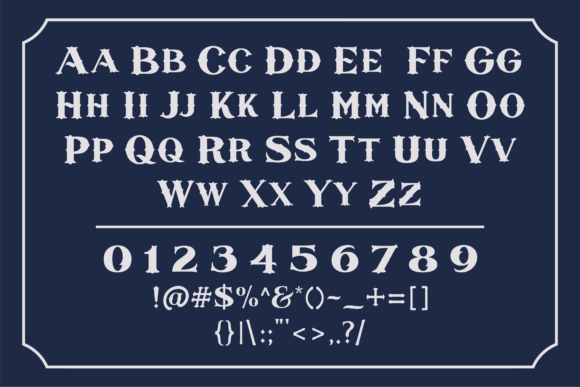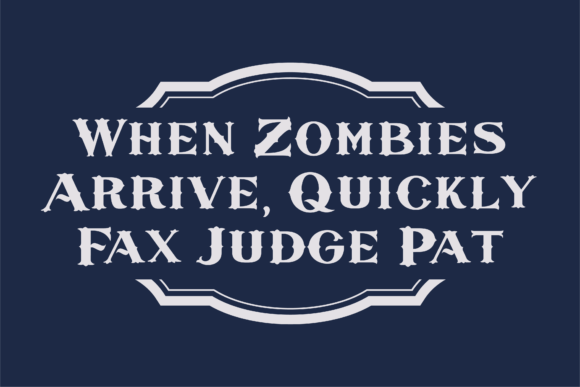
Introduction to Sieber & Satire Font
As designers, we’ve all had those moments when we stumble upon the perfect font to elevate our creative project. For me, it was the discovery of the Sieber & Satire Font – a beautifully crafted, vintage-inspired all-caps font that instantly transported me to a bygone era of traditional sign painting and vintage labels.
With its intricate details and classic charm, the Sieber & Satire Font is a design treasure that’s sure to add a touch of sophistication to any project. Whether you’re working on a branding campaign, a packaging design, or a digital product, this high-quality font is an invaluable resource that’s sure to help you stand out from the crowd.
Key Features of Sieber & Satire Font
- Unique blend of humor and satire, making it ideal for creative projects that require a touch of irony.
- High-quality font design with transparent background, allowing for seamless integration into various design elements.
- Perfect for designers and artists working on creative projects, such as editorial illustrations, memes, and social media graphics.
Honest Review: Sieber & Satire Font
I recently had the chance to work with the Sieber & Satire Font, and I must say it’s a great addition to my design resource library. This font is perfect for any creative project that requires a touch of elegance and sophistication.
- ✨ High-quality design: The font is beautifully crafted with attention to detail, making it a great choice for any project.
- ⚠️ Limited font styles: While the font is well-designed, it’s limited to a few styles, which might not be suitable for projects that require a wide range of font options.
Overall, I’m impressed with the Sieber & Satire Font. It’s a great addition to any design library, and its high-quality design makes it a pleasure to work with. While it has some limitations, it’s still a great resource for designers looking for a free and elegant font option.
Tips for Getting the Most Out of Sieber & Satire Font
To get the most out of the Sieber & Satire Font, use it with a transparent background to create a unique and eye-catching design. Experiment with different font sizes and styles to add depth and interest to your project.
The Sieber & Satire Font is ideal for creative projects that require a bold and playful touch. Use it for social media graphics, posters, flyers, and more. Its high-quality design and transparent background make it perfect for adding a professional touch to your designs.